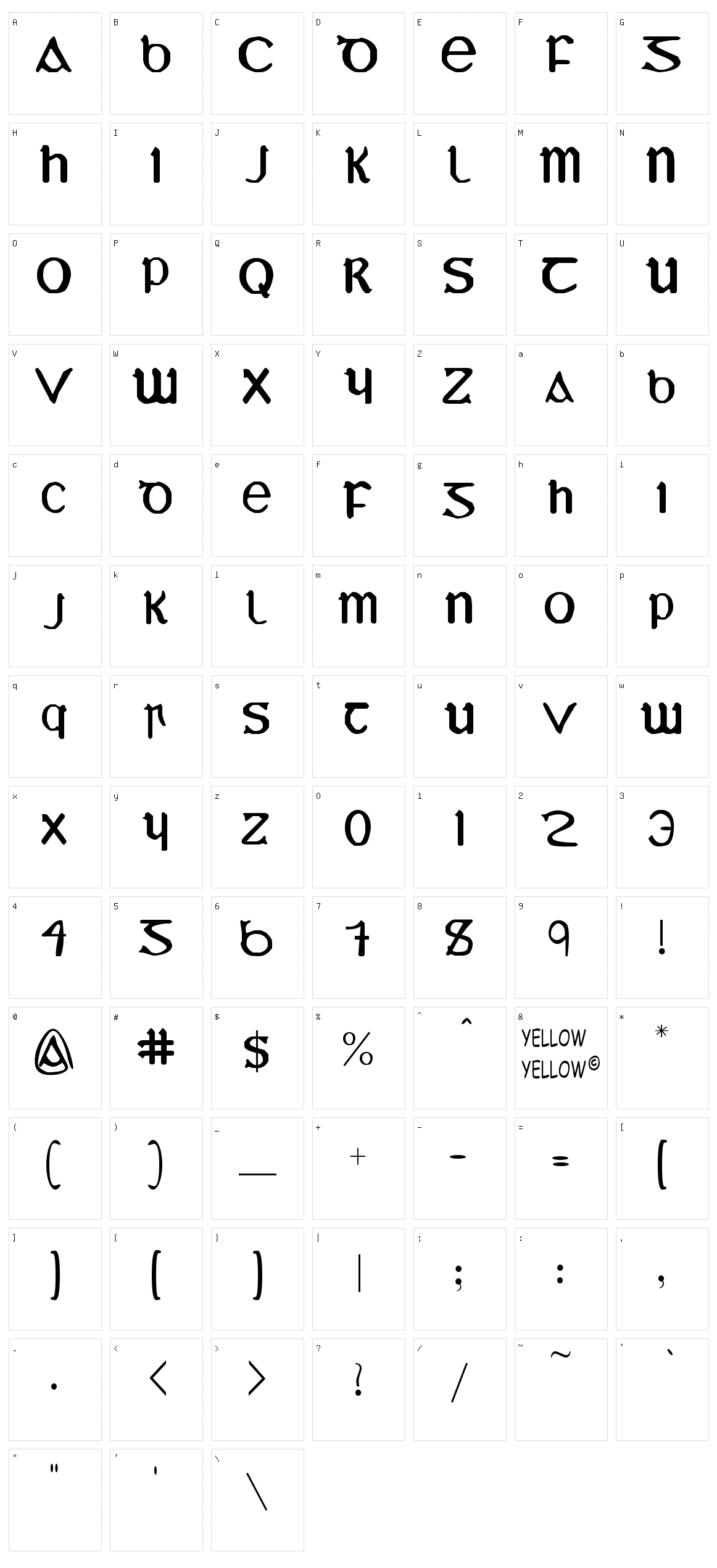
YY Uncial Most Irish
Purpose: I designed Uncial Most Irish font to write the Irish Uncial alphabet. However, fill free to use it to beautify any document as it is a lovely, old worldly script.
History: From the time of the middle ages it was used to write Irish Gaelic. Until recently it was used widely, and is still used on street signs in Ireland. Today, most Irish is written using the modern Latin alphabet.
(1) Irish does not have the letters k,j,q,v,w,x,y,z. I have included them for typing in English and for loan words to Irish.
(2) Also, in Irish Uncial, the lowercase letter 's' looks like an 'r'. To avoid confusion, I have used a version of the uppercase 'S'.
However, under the font mapping 'long s' I have included the Irish Unical lowercase 's', as the shape of this letter derived from the 'long s' originally.
(3) In Irish Uncial, lenition is indicated with the use of a dot above the letter. When writing Irish using modern Latin letters, an 'h' is added after the consonant.